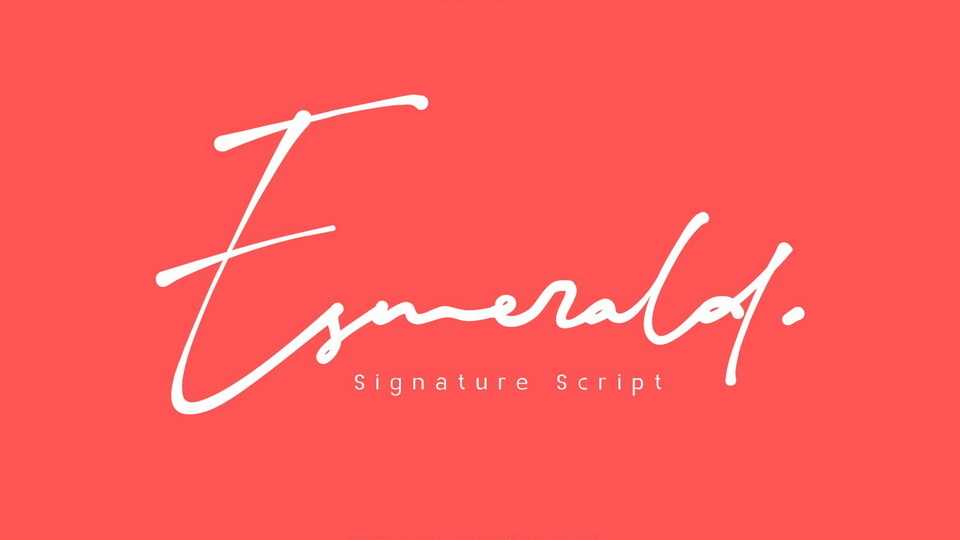
Download Esmerald font, an elegant and flowing signature style script. Esmerald font is perfect for your feminine design, you can also make a branding such as cosmetics products, photography, invitation designs or your trademark.
Designer: Mozyen Studio